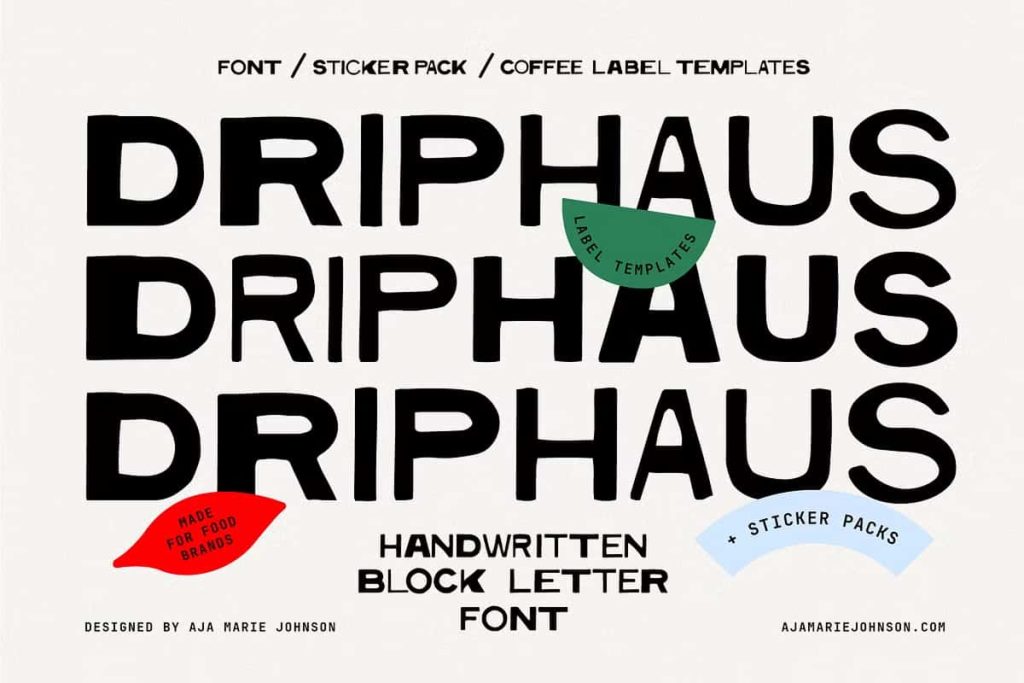
Driphaus Cafe Display Font: Bold Character with a Handcrafted Edge
Driphaus is a distinctive all-caps display font designed to bring personality and authenticity into modern design. Originally brewed up for a café environment, this typeface captures the raw charm of coffee culture and transforms it into a bold typographic voice. It combines clean, blocky letterforms with subtle imperfections, creating a look that feels both structured and deeply human.
This font does not aim for perfection. Instead, it celebrates irregularity and character, making every word feel intentional and expressive. Driphaus allows designers to create work that feels grounded, approachable, and full of life.
The Inspiration Behind Driphaus
Driphaus draws strong inspiration from café culture, where design meets everyday experience. It reflects the visual language found in hand-painted signage, chalkboard menus, and custom packaging often seen in local coffee shops. These environments value authenticity over polish, and Driphaus captures that spirit with precision.
The font evokes the feeling of a neighborhood café—warm, inviting, and full of personality. It feels like lettering written by hand on a chalkboard or stamped onto a bag of freshly roasted beans. This connection to real-world textures and experiences gives Driphaus its unique identity.
Key Features of Driphaus
All-Caps Display Design
Driphaus uses an all-caps structure that delivers strong visual impact. The uppercase letters create a bold and confident presence, making the font ideal for headlines and prominent design elements.
Clean Yet Imperfect Letterforms
The font balances clarity with imperfection. While the overall structure remains clean and readable, subtle irregularities in the strokes add character and depth. These details prevent the typeface from feeling mechanical or generic.
Handcrafted Aesthetic
Inspired by hand-painted signage, Driphaus carries a natural, handcrafted quality. Each letter feels slightly unique, giving the text a personal and authentic tone that resonates with audiences.
Bold and Approachable Style
The typeface communicates strength without losing its friendly nature. Its bold shapes draw attention, while its imperfections keep it approachable and relatable.
Best Use Cases for Driphaus
Driphaus excels in projects that require a strong visual identity and a touch of authenticity. Its expressive style makes it especially effective for:
- Coffee shop branding and café identity design
- Packaging for coffee, food, and lifestyle products
- Posters and promotional materials with a bold message
- Merchandise design such as tote bags, apparel, and labels
Designers often use Driphaus in large sizes to highlight its unique details. Pairing it with a simple sans serif font can help balance the composition while allowing its character to stand out.
Why Choose Driphaus?
Driphaus offers a refreshing alternative to overly polished display fonts. It allows designers to create work that feels real, expressive, and full of personality. The font’s handcrafted aesthetic helps establish a strong emotional connection with the audience, making it especially valuable in branding projects.
Its versatility also makes it suitable for a wide range of applications. Whether you are designing for print or digital platforms, Driphaus provides a consistent and impactful typographic solution.
Driphaus is more than a café-inspired display font—it is a celebration of authenticity and character. By blending bold structure with subtle imperfections, it delivers a typeface that feels both confident and approachable. For designers who want to create memorable and expressive work, Driphaus offers a powerful and distinctive solution.